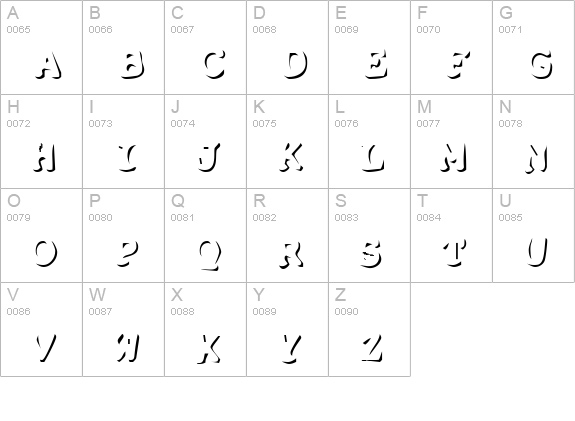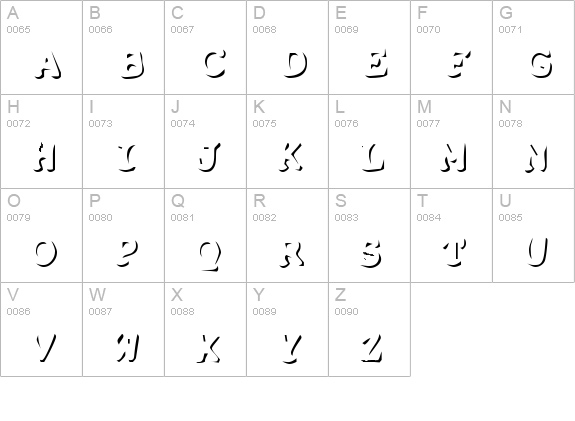
Introducing Shadow Puppets font, a captivating and versatile typeface that brings a touch of mystery and playfulness to your designs. With its intricate and artistic shadow effects, this font is perfect for adding a dramatic touch to any project. Shadow Puppets font is not only visually stunning but also incredibly versatile. Its unique combination of bold and delicate lines creates a harmonious balance that is both eye-catching and elegant. Whether you're designing a poster, creating a logo, or adding text to an illustration, this font will elevate your work to new levels of creativity. One of the best parts about Shadow Puppets font is that it's free! Yes, you read that right. This stunning typeface is freely available to download at FontsMarket.com. Now, you can add a touch of intrigue to your designs without breaking the bank. With just a few clicks, you'll have access to a font that is sure to impress and captivate your audience. But don't let its availability fool you into thinking that Shadow Puppets font is anything less than top-notch. This font has been meticulously crafted by a team of talented designers who understand the importance of quality and attention to detail. Each letter and shadow effect has been carefully designed to ensure a seamless and visually appealing result. Whether you're a professional designer, a creative hobbyist, or someone looking to add a unique touch to their personal projects, Shadow Puppets font is the perfect choice. Its versatility, captivating aesthetics, and free availability make it an invaluable asset in your font library. So, what are you waiting for? Head over to FontsMarket.com and download Shadow Puppets font today. Unleash your creativity and let this stunning font transform your designs into works of art.